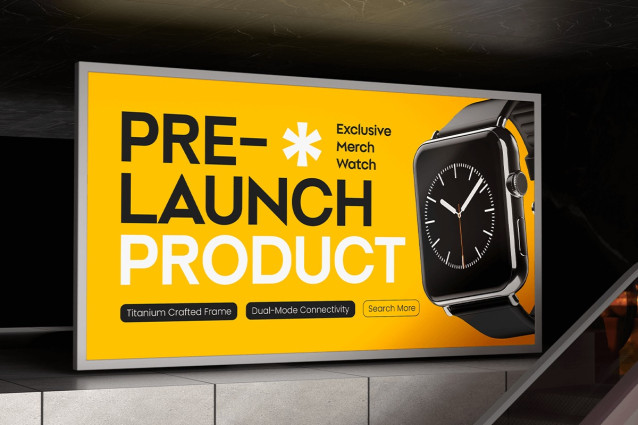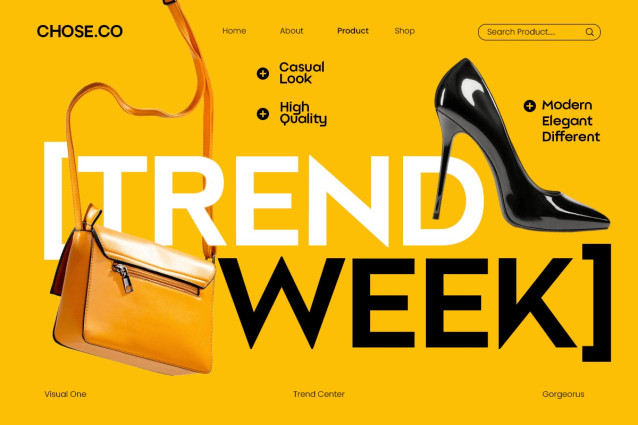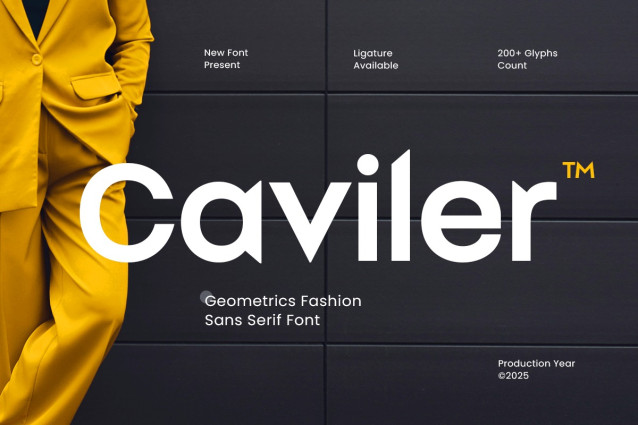
Caviler Font
Caviler Font is a clean and professional sans-serif typeface built on precise geometric foundations. Designed for corporate branding, editorial layouts, and modern digital design, Caviler combines simplicity, strength, and elegance to create a timeless visual identity.
With its well-balanced letterforms and minimalist aesthetic, Caviler enhances any commercial or creative project, from brand identities and presentations to websites and advertising materials. Its geometric precision ensures legibility and consistency, giving each design a polished and professional look.